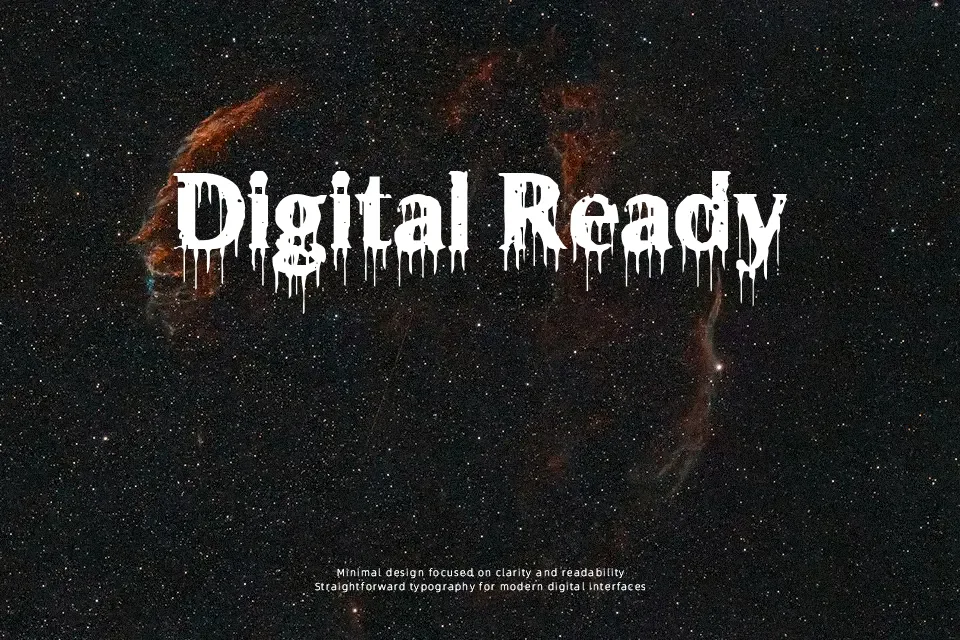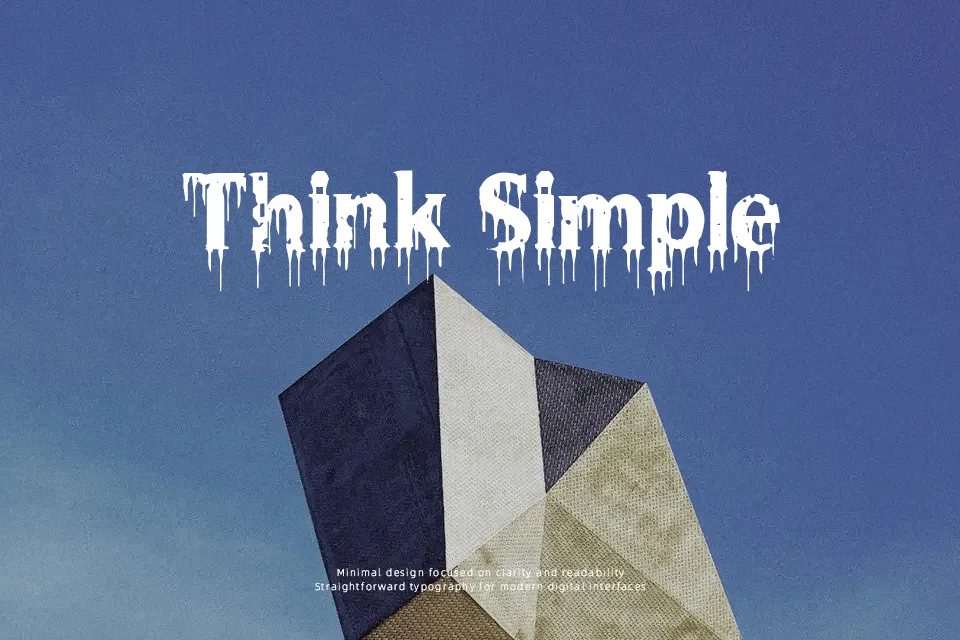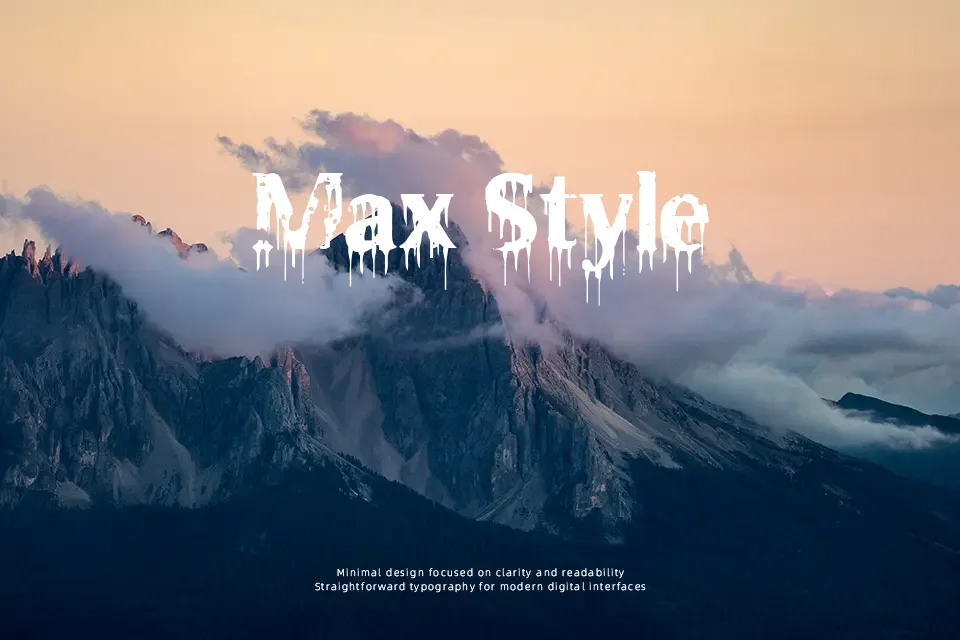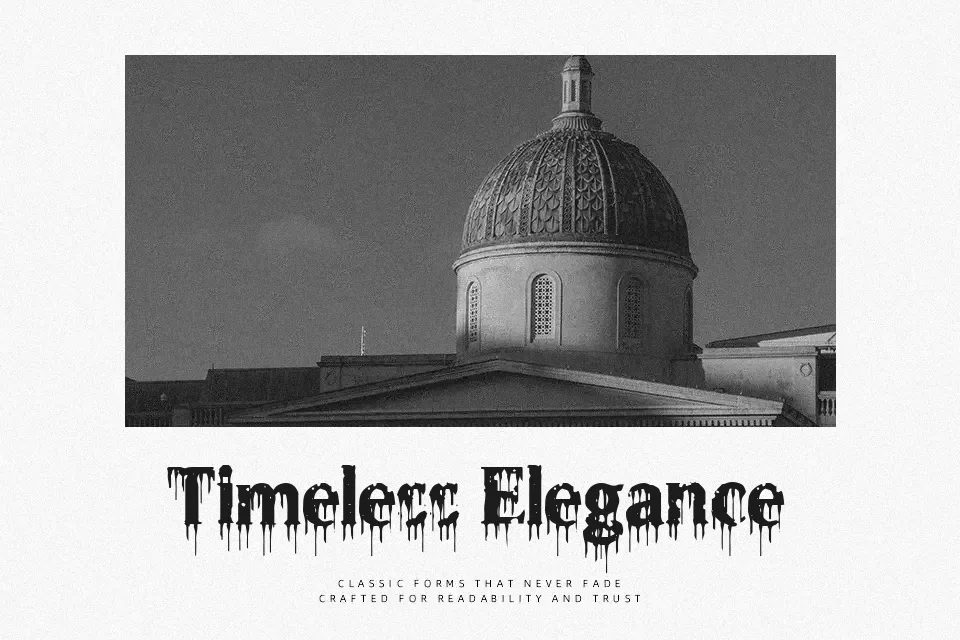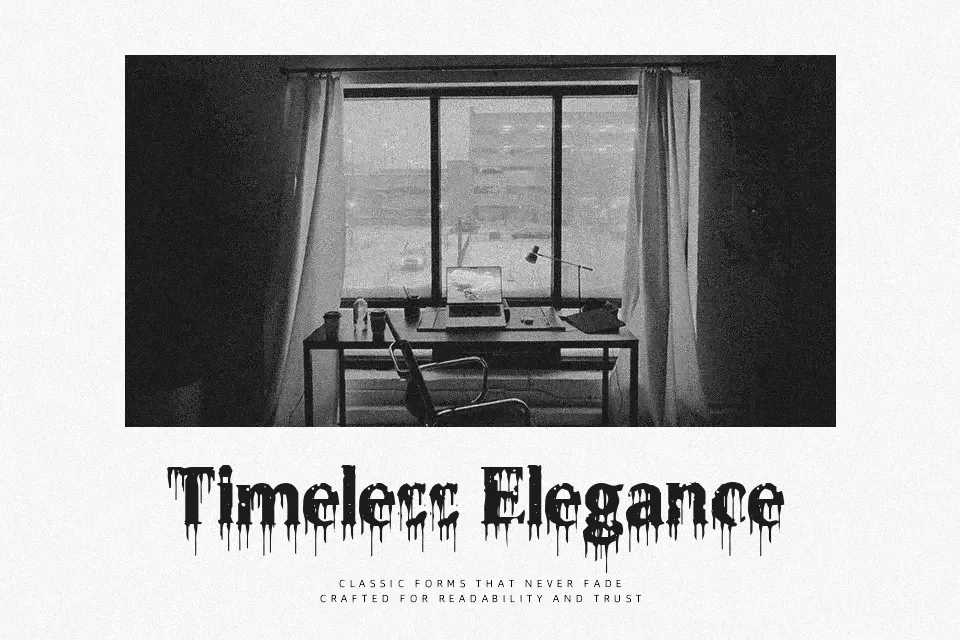
Bloodletting Legacy Font
Bloodletting Legacy delivers a macabre aesthetic by combining semi-bold structures with heavily eroded textures. The typeface features varied stroke thicknesses anchored by classic serifs, but its defining characteristic lies in the sharp blood drips cascading from the letterforms. This creates a dramatic, grunge-heavy impression that commands immediate attention. Designers will find this typeface highly effective for indie horror film titles, haunted house flyers, and dark apparel graphics. The underlying serifs keep it surprisingly readable compared to messier blood-splatter fonts. However, its intense, dripping texture becomes visually overwhelming in smaller text. It thrives strictly as a large-scale display element, losing its intricate decayed detailing and legibility when scaled down for extended reading.
High-impact horror film posters
Halloween event promotional materials
Thriller novel cover typography
Edgy band merchandise graphics
Dense paragraphs or body copy
Corporate branding and professional logos
Small-scale print materials
Clean minimalist UI design
Perfect for fashion, film, and halloween, with a bold and decorative style.